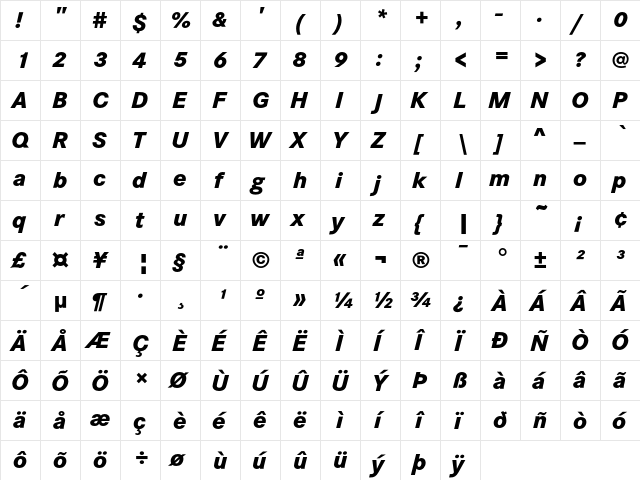
Corporate S Extra Bold Italic Font Preview
Design Context for Corporate S Typeface
Corporate S offers clean, dependable letterforms without strong stylistic allegiance, making it a practical choice for designers who need flexibility. The dynamic lean of this cut emphasises speed and emphasis in any layout. The heavy weight commands attention and anchors typographic hierarchies.
Pro Tip: Try Corporate S for annotation and caption copy alongside an upright companion — the contrast in angle creates a dynamic but ordered typographic system.